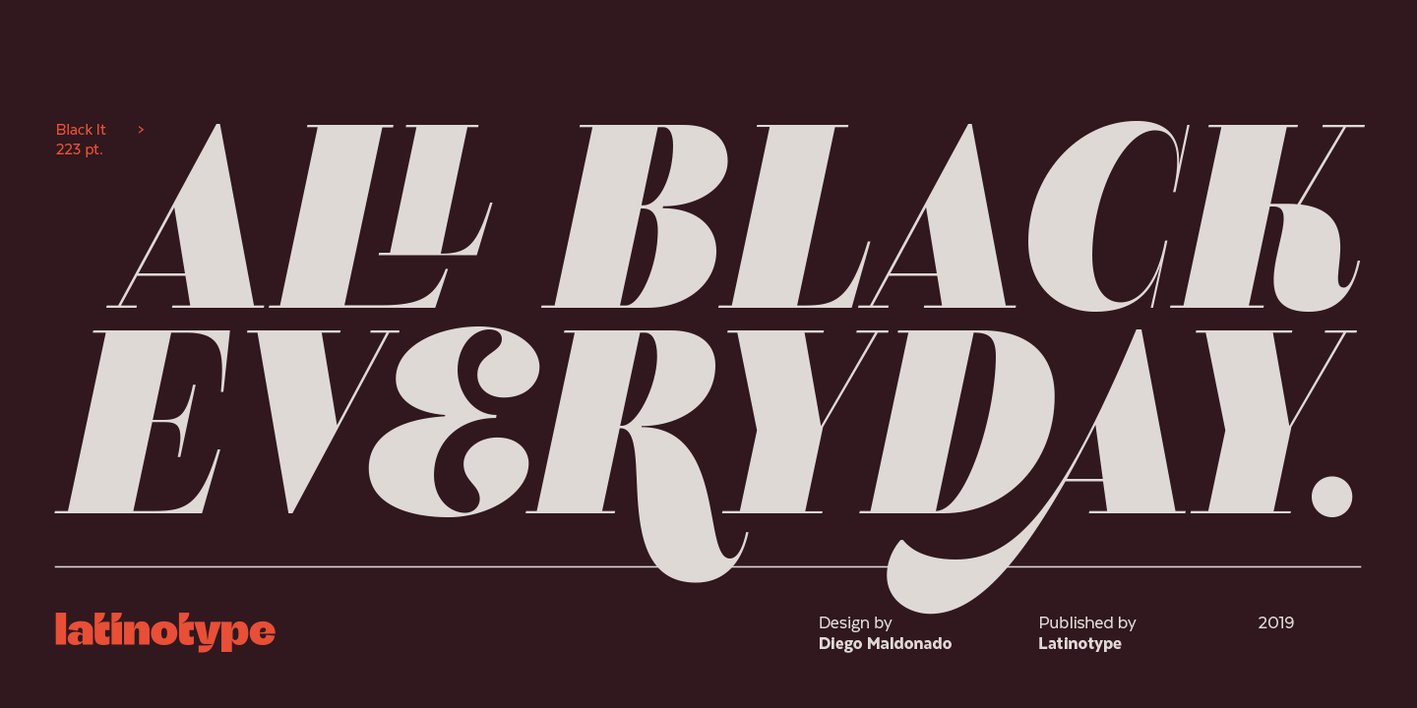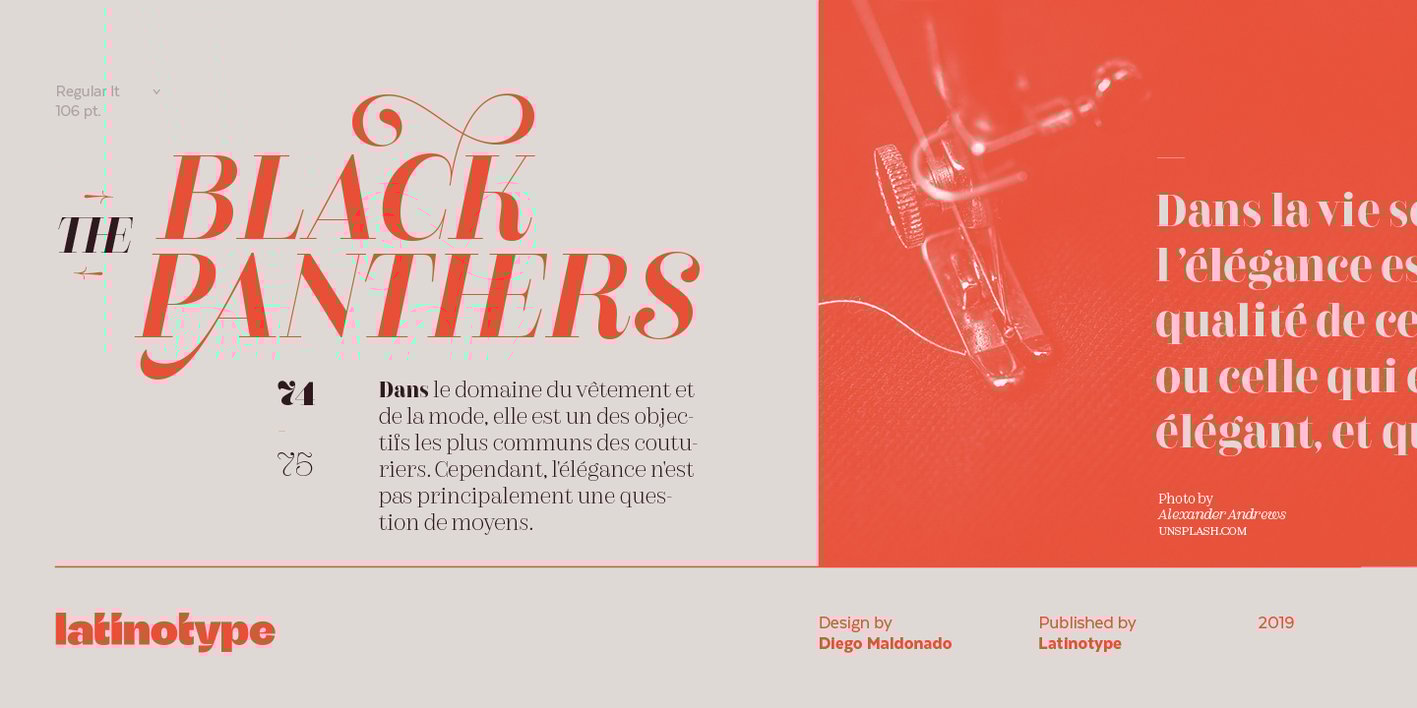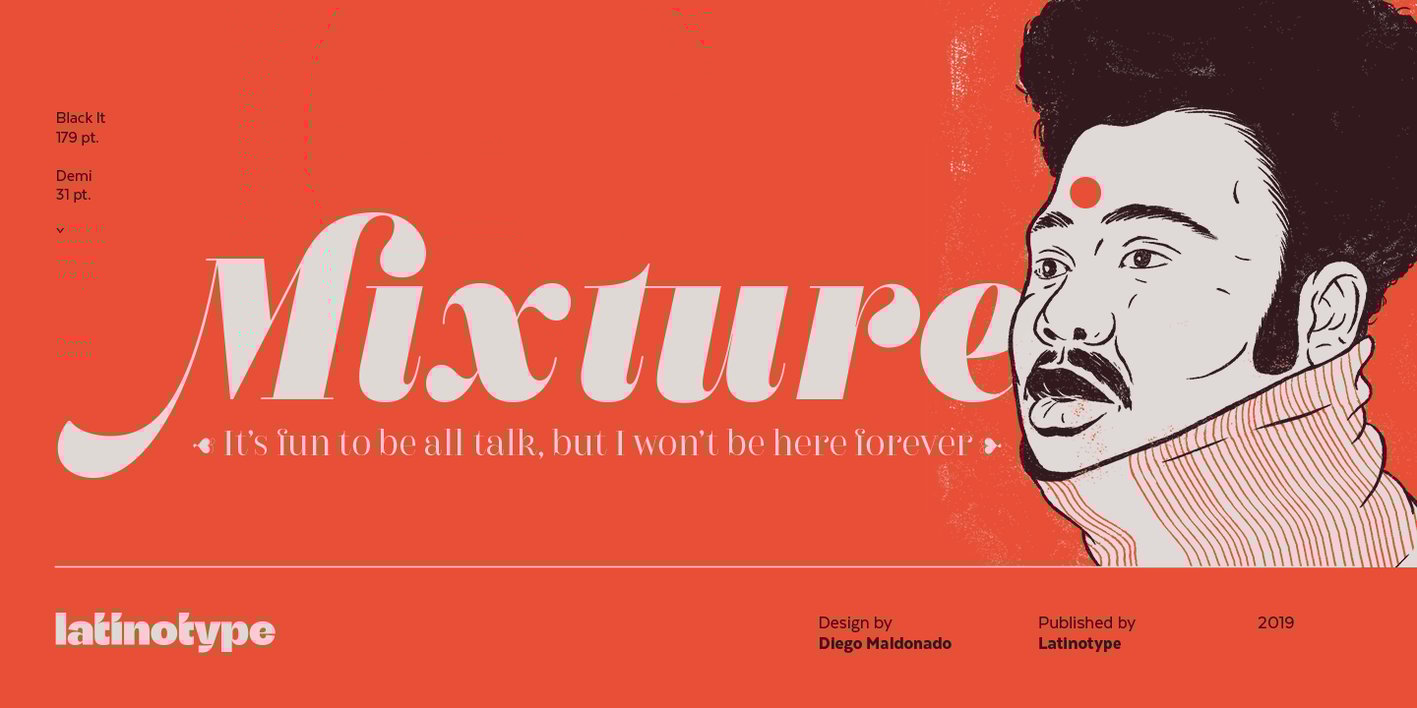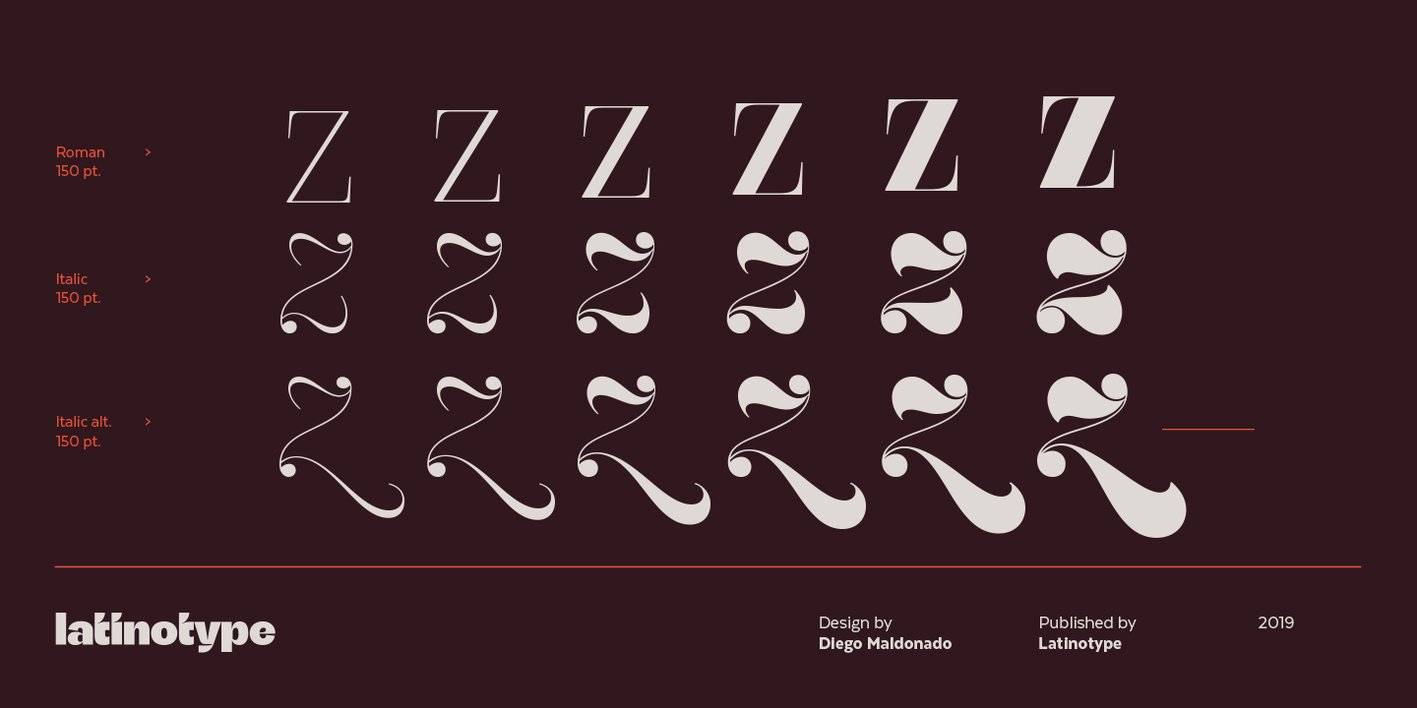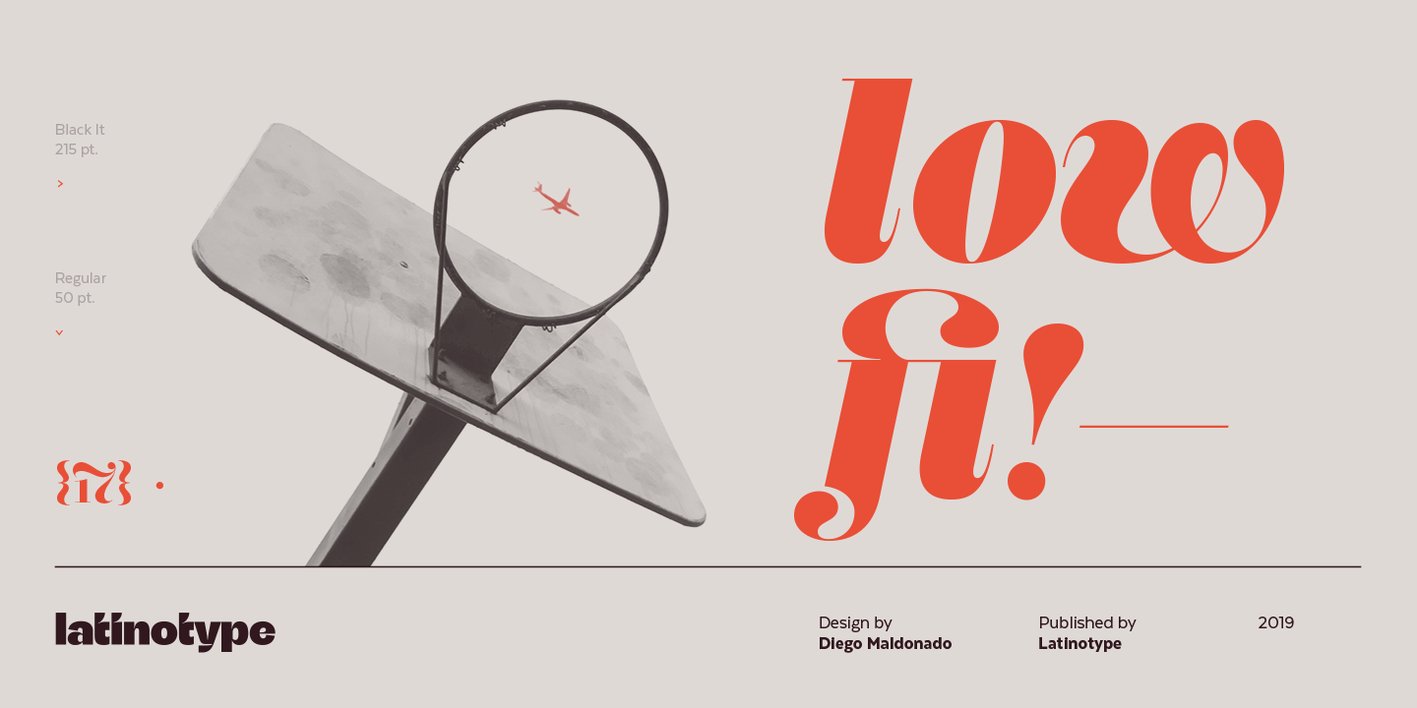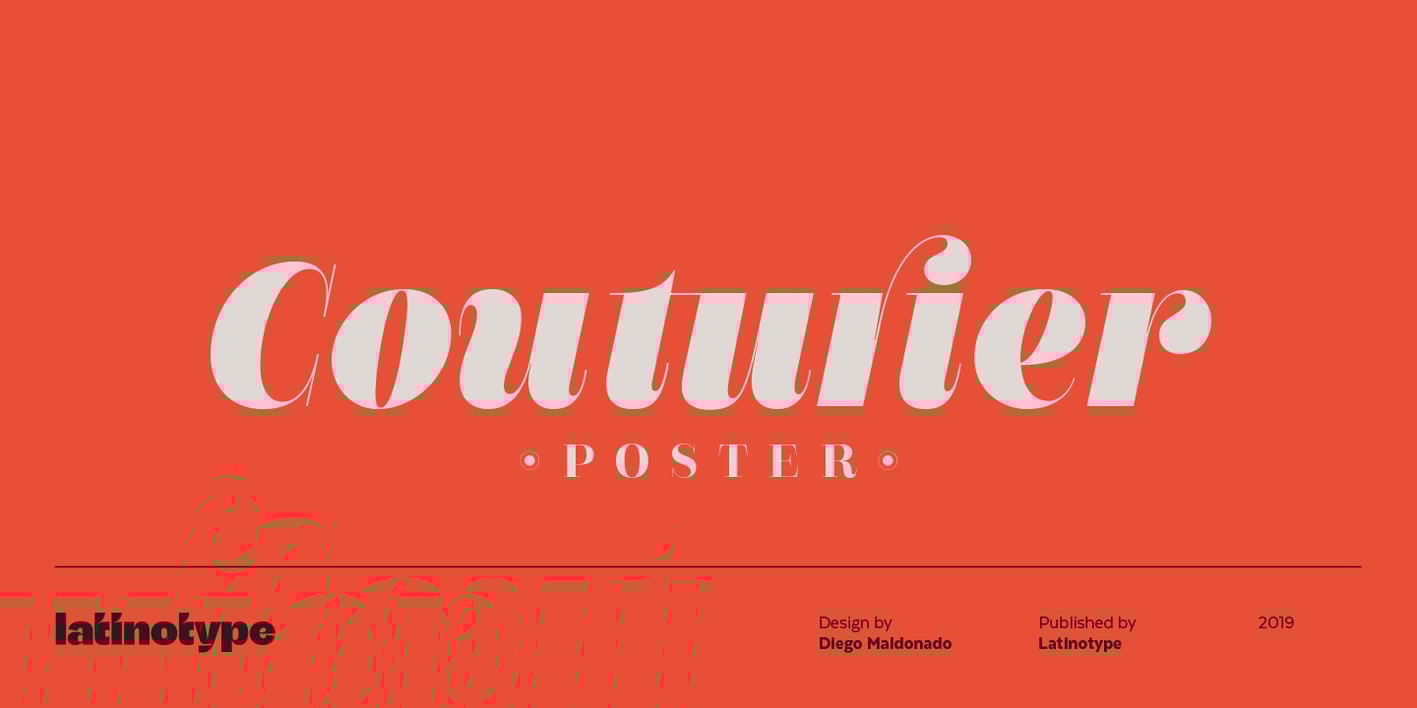
Couturier Poster Font
Couturier Poster Font is perfect for high fashion advertising, luxury fashion campaigns, couture runway presentations, fashion magazine headlines, designer brand promotions, fashion week posters, haute couture exhibitions, fashion show graphics, designer boutique signage, luxury fashion editorials, fashion photography credits, and sophisticated projects that require elegant, fashion-forward typography with couture sophistication and runway glamour.
What makes Couturier Poster Font so exciting is its haute couture elegance and fashion-forward sophistication that embodies the exclusive world of high fashion and the artistic excellence of luxury couture design. This typeface features dramatically elegant letterforms with fashion-inspired characteristics and runway-worthy details that evoke the glamour of Paris fashion weeks, the artistry of couture ateliers, and the kind of sophisticated luxury that defines the highest levels of fashion design. The font's couture character and fashion appeal make it perfect for luxury fashion brands and haute couture houses that want to communicate exclusivity, artistic excellence, and the kind of fashion-forward sophistication that sets true couture apart from ordinary fashion.
Couturier Poster Font typically comes in multiple weights and styles including Light, Regular, Medium, Bold, and Ultra variations. Many versions also include fashion ornaments, couture decorative elements, and luxury symbols that enhance the font's fashion functionality and provide designers with comprehensive tools for creating sophisticated, runway-inspired typography compositions that capture the artistic excellence of haute couture design.
Whether you're designing fashion campaign materials, luxury brand communications, or couture exhibition graphics, Couturier Poster Font delivers exceptional fashion authenticity and couture elegance that connects with audiences who appreciate the artistic excellence and exclusive sophistication of high fashion. Its dramatically elegant appearance works exceptionally well in large poster applications where its couture details can create maximum fashion impact and luxury appeal.
The exquisitely crafted letterforms of Couturier Poster Font showcase the ultimate expression of fashion typography and couture design principles. Each character has been designed to convey the artistic excellence and exclusive sophistication that defines haute couture while maintaining excellent readability, ensuring that your fashion communications capture the glamorous elegance and luxury authenticity that discerning fashion audiences expect from true couture brands and runway excellence.